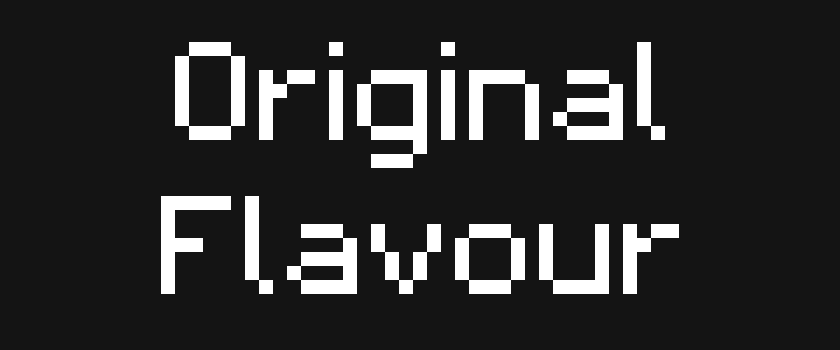
The OG - Now with BOLD
Original Flavour - 9x5 Pixel Font » Devlog
Added new BOLD version to "The OG" font
Original Flavour - 9x5 Pixel Font
Original Flavour is clean, simple, classic & readable.